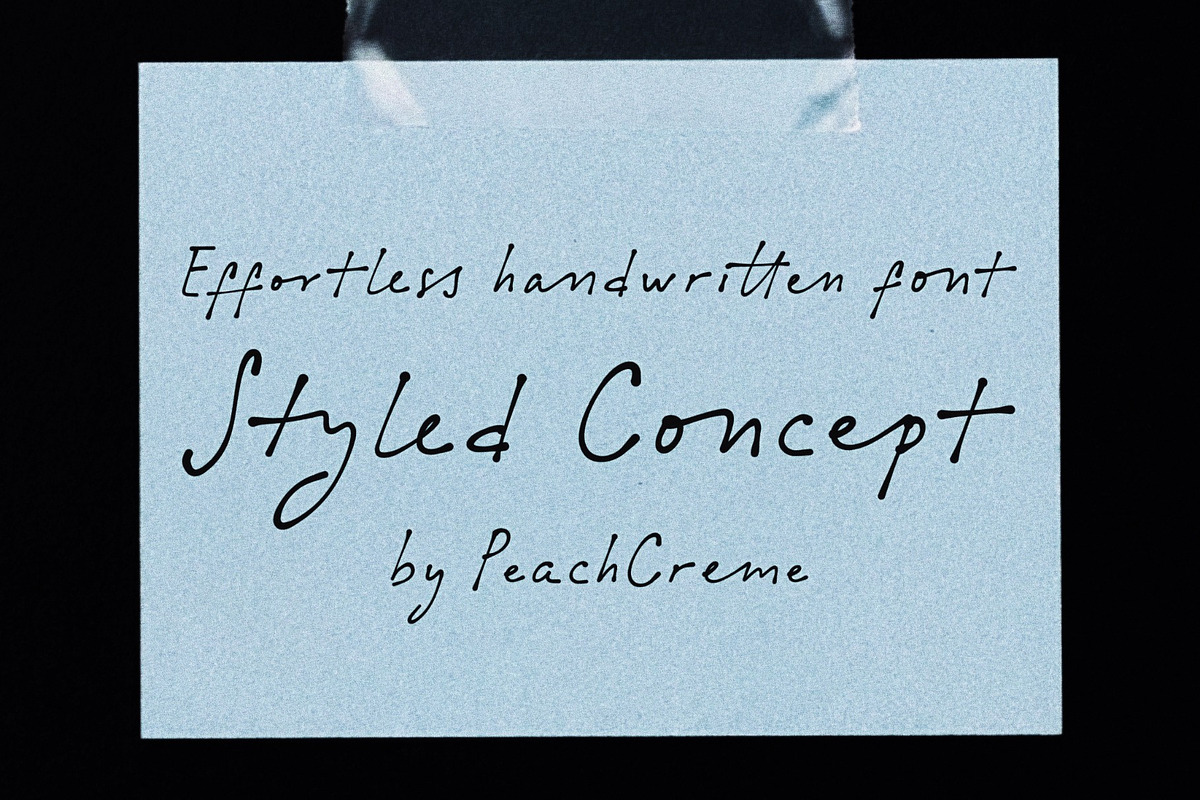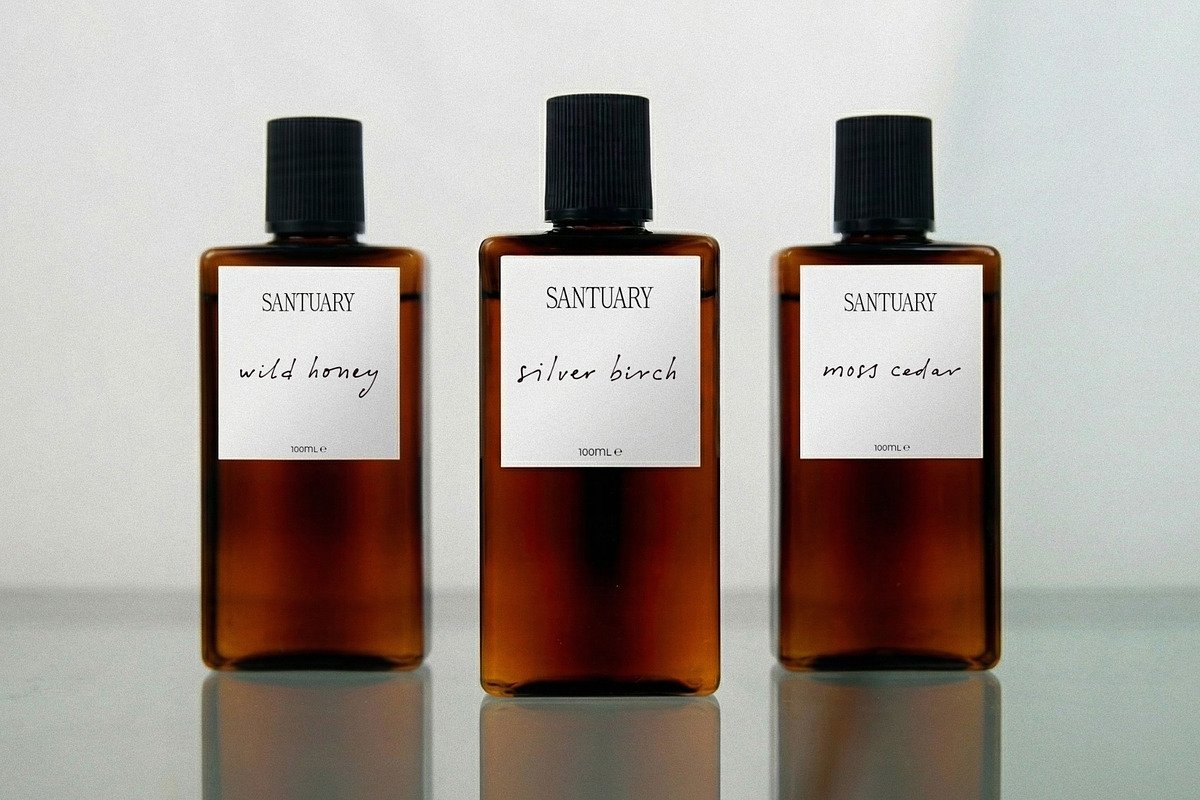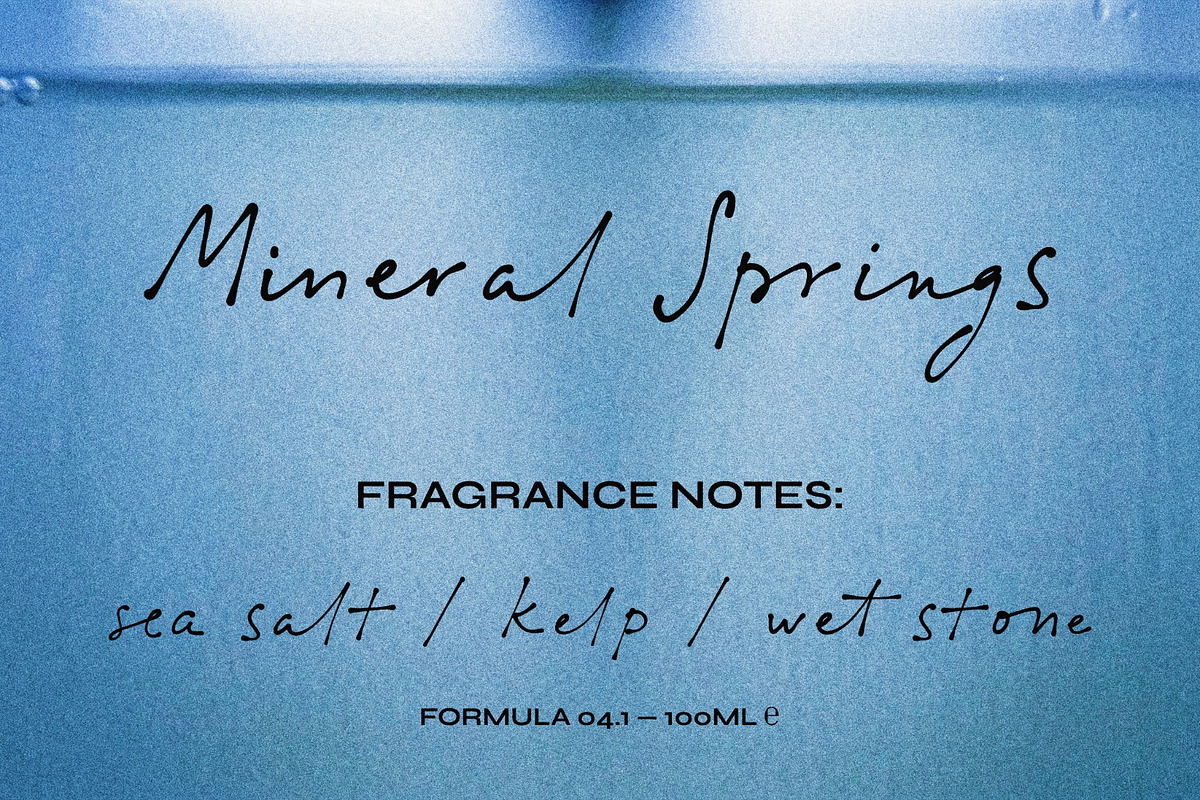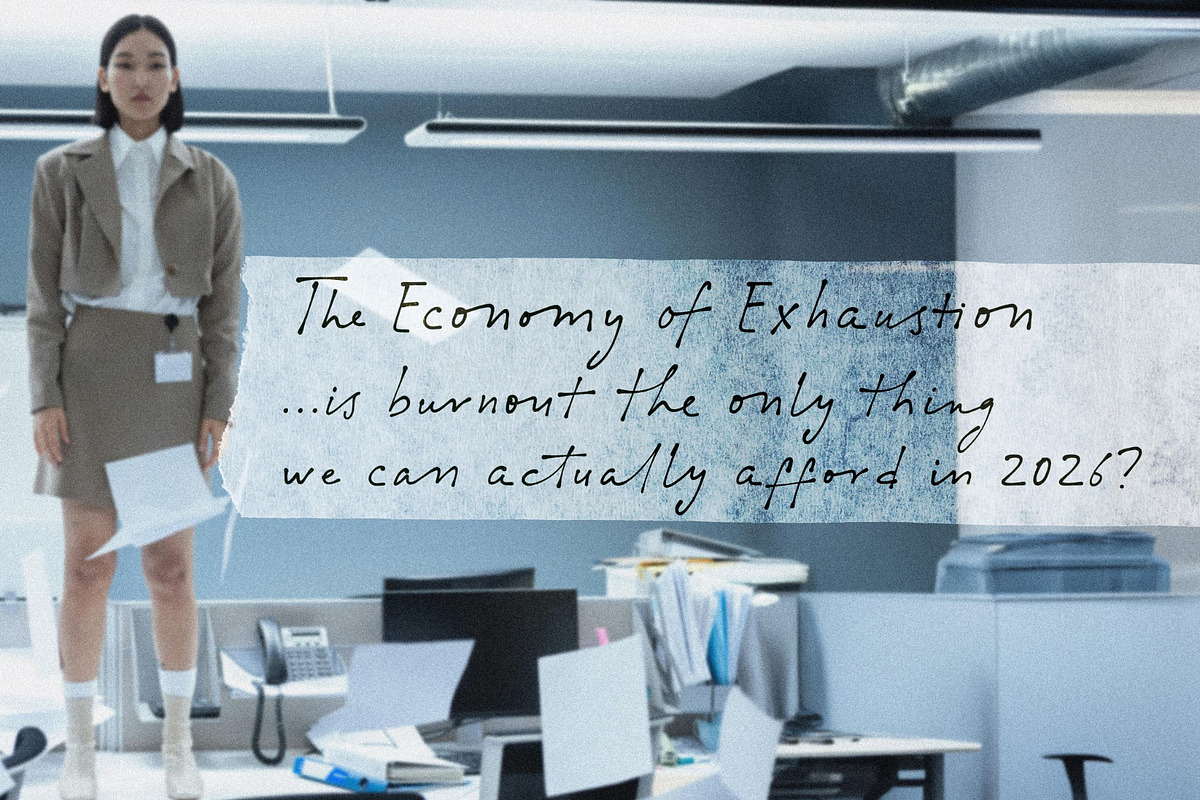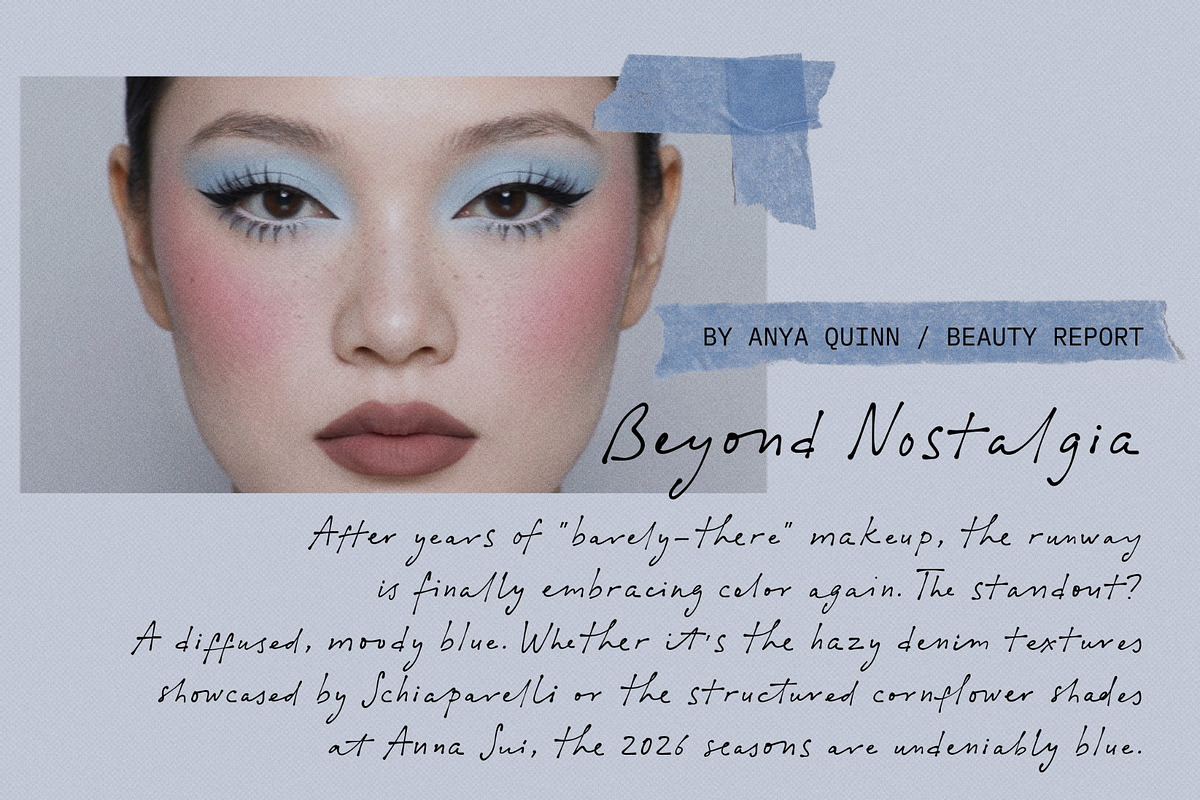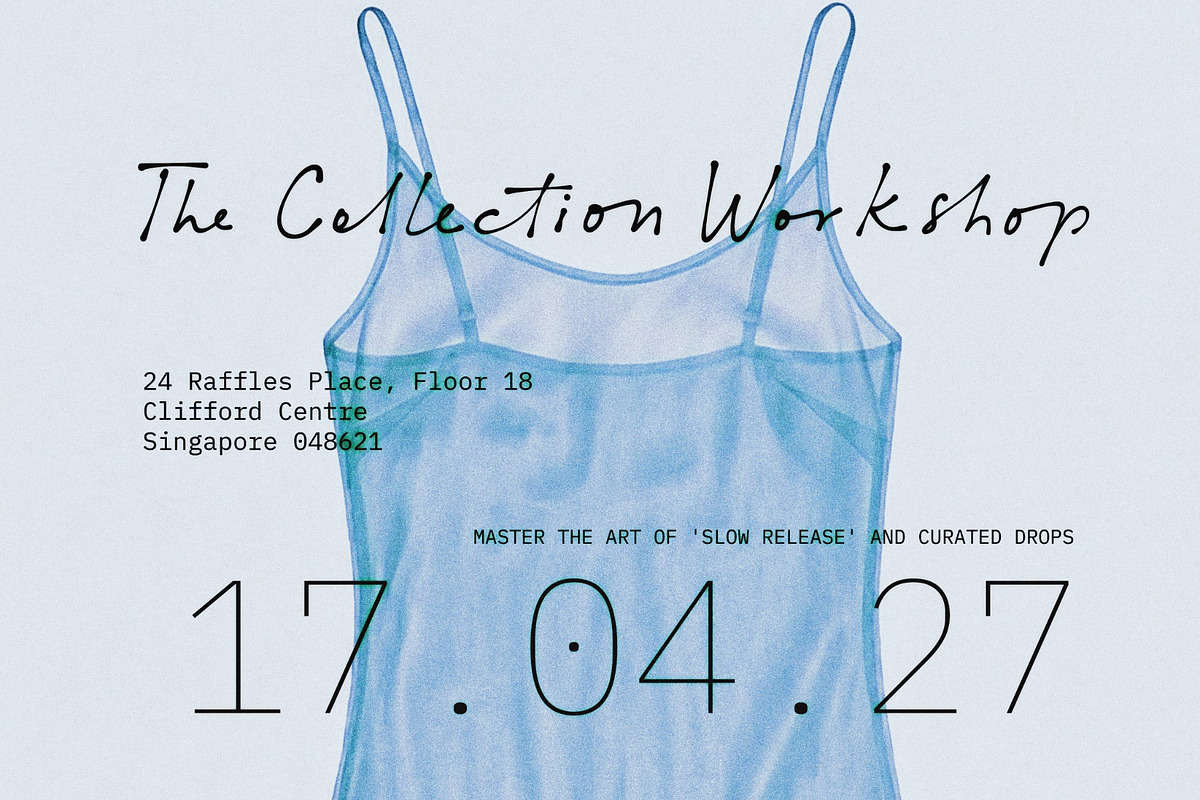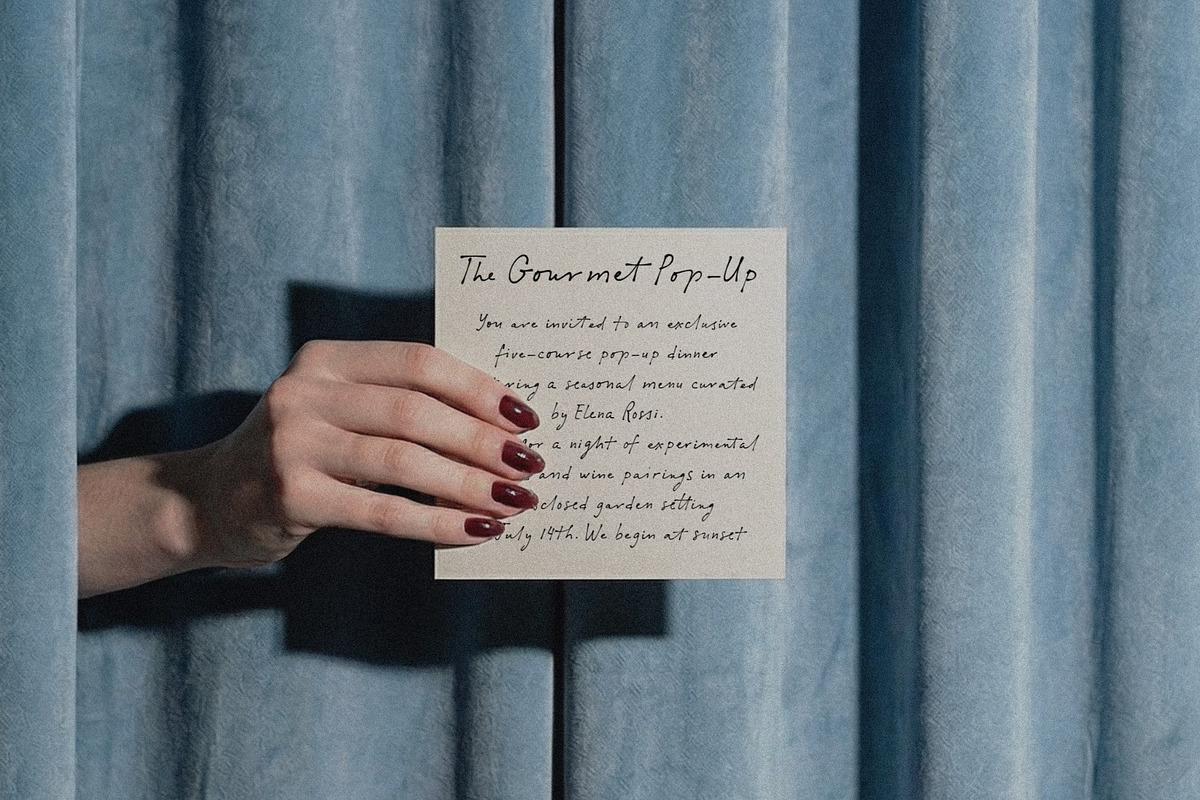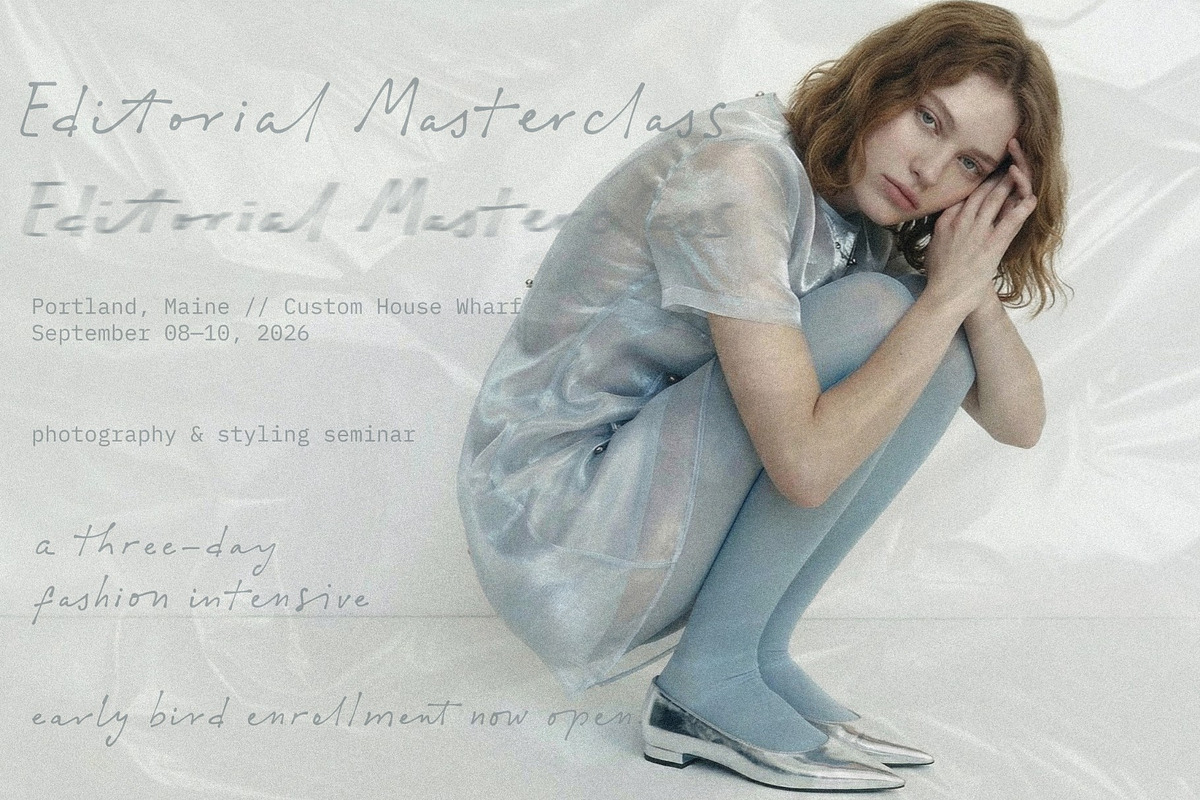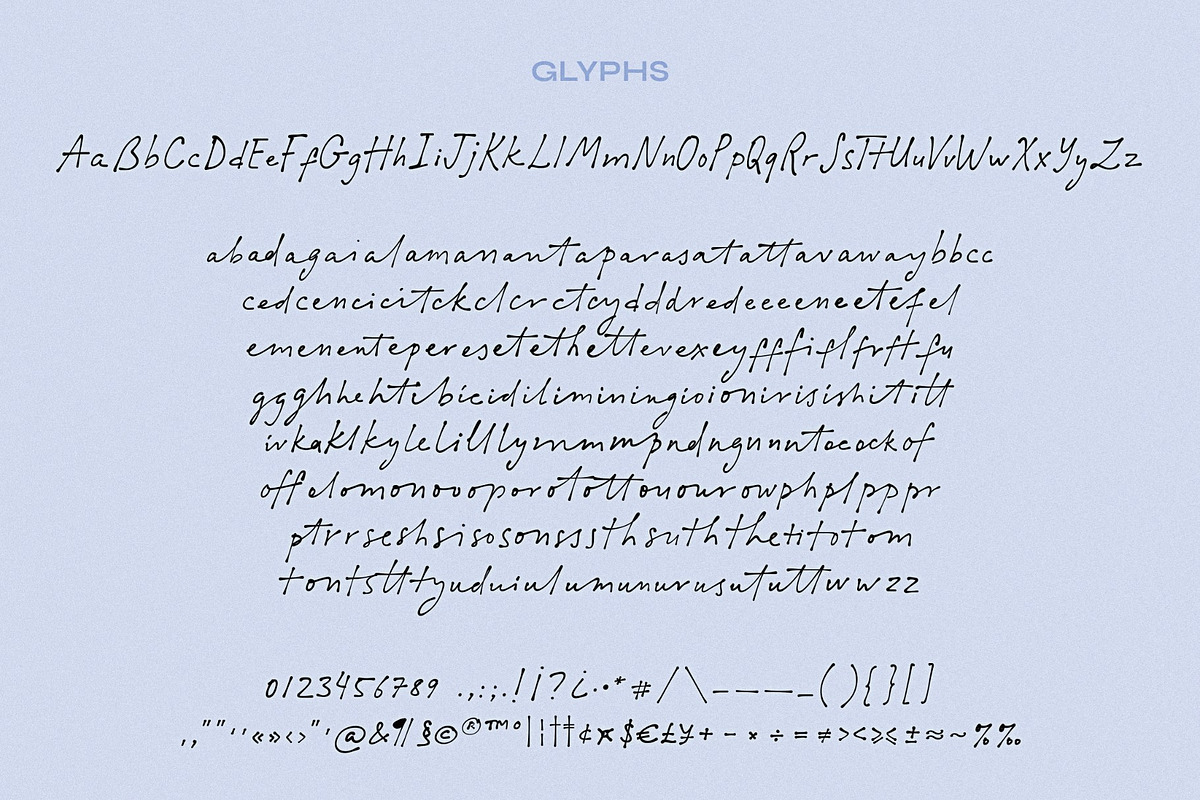
Styled Concept // Handwritten Font
Styled Concept is an effortless handwritten font designed to look like quick notes or natural jotting. It features a lean, slightly irregular slant and varying stroke weights that mimic the movement of a pen on paper. It isn't a perfect, formal calligraphy script; rather, it’s a versatile tool for when you need a "human" touch that feels authentic and understated.